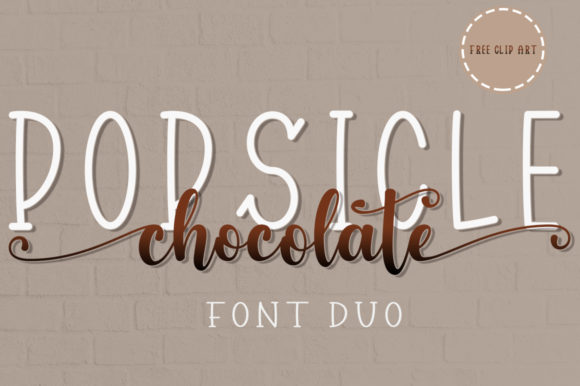
Embark on a Typographical Adventure with Popsicle Chocolate Font - Where Sweetness Meets Professionalism.
Unleash the captivating charm of Popsicle Chocolate - a handwritten font duo that's as delectable as its namesake. Its playful script dances across digital canvases, exuding warmth and a touch of whimsy. Designed to elevate your designs to new heights, this font is an irresistible confection for modern resume seekers and crafters alike.
Popsicle Chocolate's effortless elegance adds a touch of sweetness to resumes, making them stand out amidst a sea of ordinary submissions. Its carefully crafted characters, reminiscent of sweet treats, infuse your professional documents with a unique personal touch that hiring managers can't resist. Make a lasting impression and craft a resume that reflects your unique personality and creativity.
Beyond the realm of resumes, Popsicle Chocolate shines as a versatile font family, seamlessly adapting to various craft designs. Create enchanting cards, invitations, posters, logos, and more, each imbued with its own distinct character. Its user-friendly nature makes it a joy to use, enabling you to effortlessly bring your creative visions to life.
With Popsicle Chocolate Font, the possibilities are as endless as your imagination. Its captivating allure and versatility make it a must-have tool in your creative arsenal. Download Popsicle Chocolate today and immerse yourself in a world where sweetness and professionalism harmoniously intertwine.